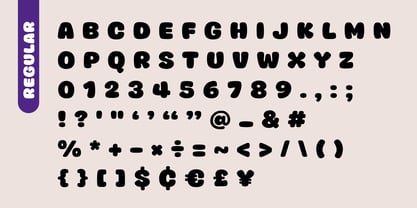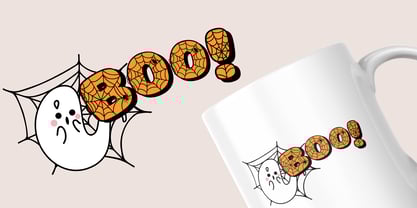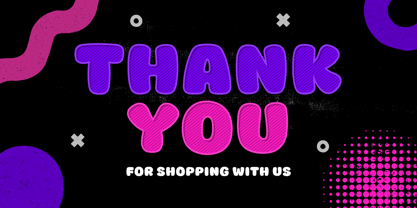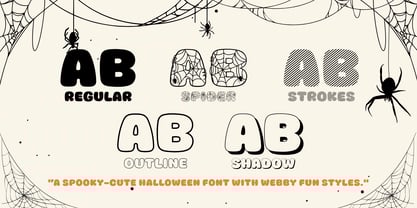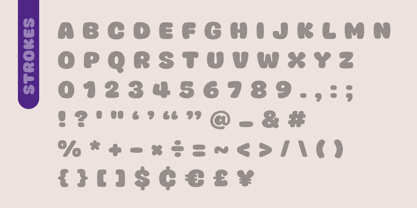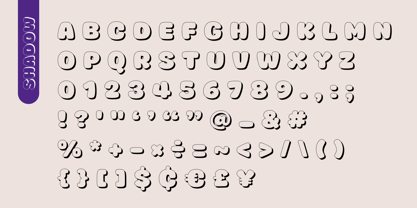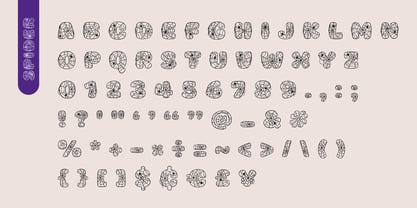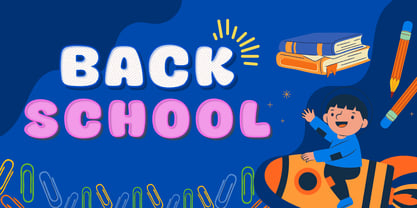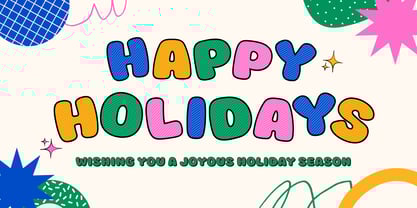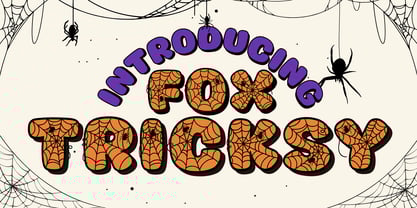
Fox Tricksy
The Fox Tricksy Font Family was designed by Rattana Rattanawan and published by Fox7. Fox Tricksy contains 5 styles and family package options. More about this family
🎃 Fox Tricksy – A Spooky Cute Display Font Family 🕷️
Get ready for some spooky fun! Fox Tricksy is a playful Halloween-themed display font family packed with 5 styles: Regular, Spider, Outline, Strokes, and Shadow. unique styles to level up your seasonal designs. With chunky letterforms, spiderweb textures, and shadowed effects, it’s perfect for party invites, posters, packaging, and all your spooky creative projects!
🧡 Add some wicked fun to your work with Fox Tricksy — the font family that’s cute, creepy, and full of character!
🕸️ Font Styles Included:
Fox Tricksy Regular – A clean, rounded style without textures — great for layering or standalone use.
Fox Tricksy Spider – Filled with intricate spiderwebs and hidden creepy-crawly friends. Perfect for a bold, eerie vibe.
Fox Tricksy Shadow – Includes a dramatic black drop shadow to add depth and impact.
Fox Tricksy Outline – A playful outlined version for stylish headlines or layering.
Fox Tricksy Strokes – A fun striped fill for an extra festive and quirky look.